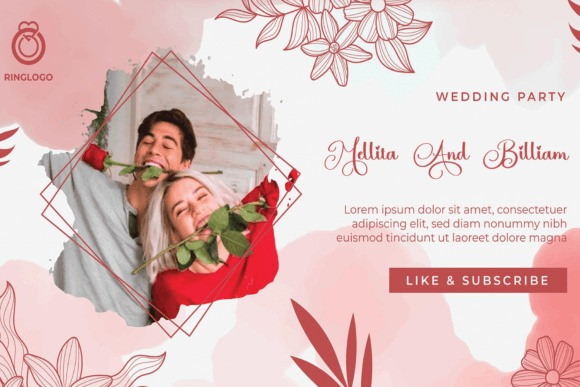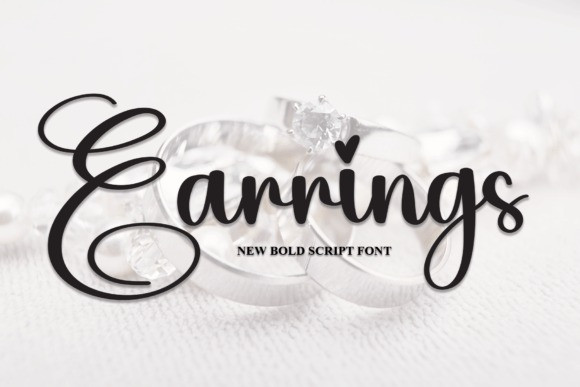
Earrings Script Font
Earrings Script Font, The latest style letters are perfect for wall displays, wedding invitations, social media post logos, advertisements, product packaging, product designs, labels, photography, watermarks, invitations, stationery, and any project that requires handwritten taste.